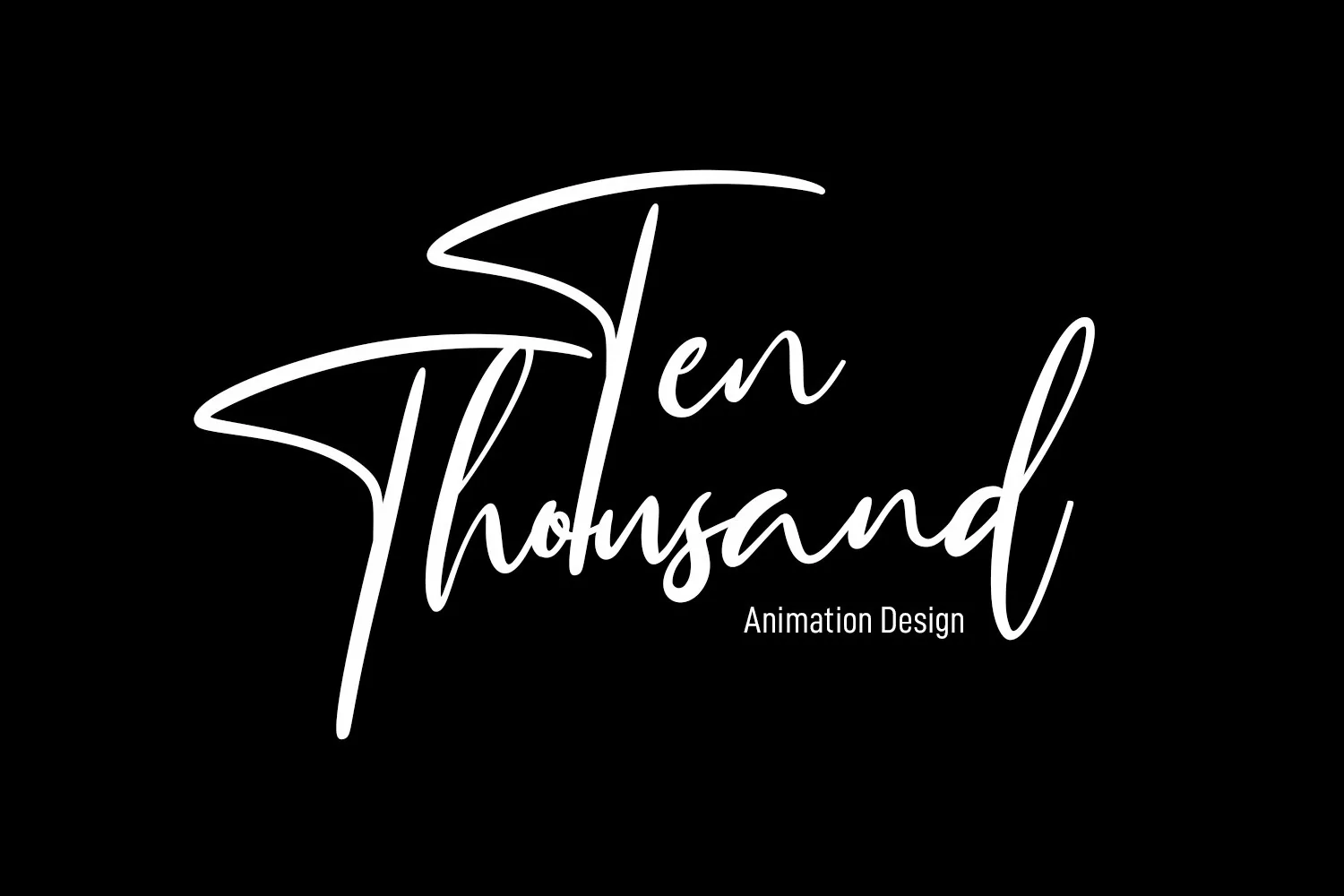
Queensytrix is a chic script font. With light contrast stroke, slanted and fun character with a rich of ligatures. To give you an extra creative work. Queensytrix font support multilingual more than 100+ language. This font is good for logo design, Social media, Movie Titles, Books Titles, a short text even a long text letter and good for your secondary text font with sans or serif. Make a stunning work with Queensytrix font.
Queensytrix